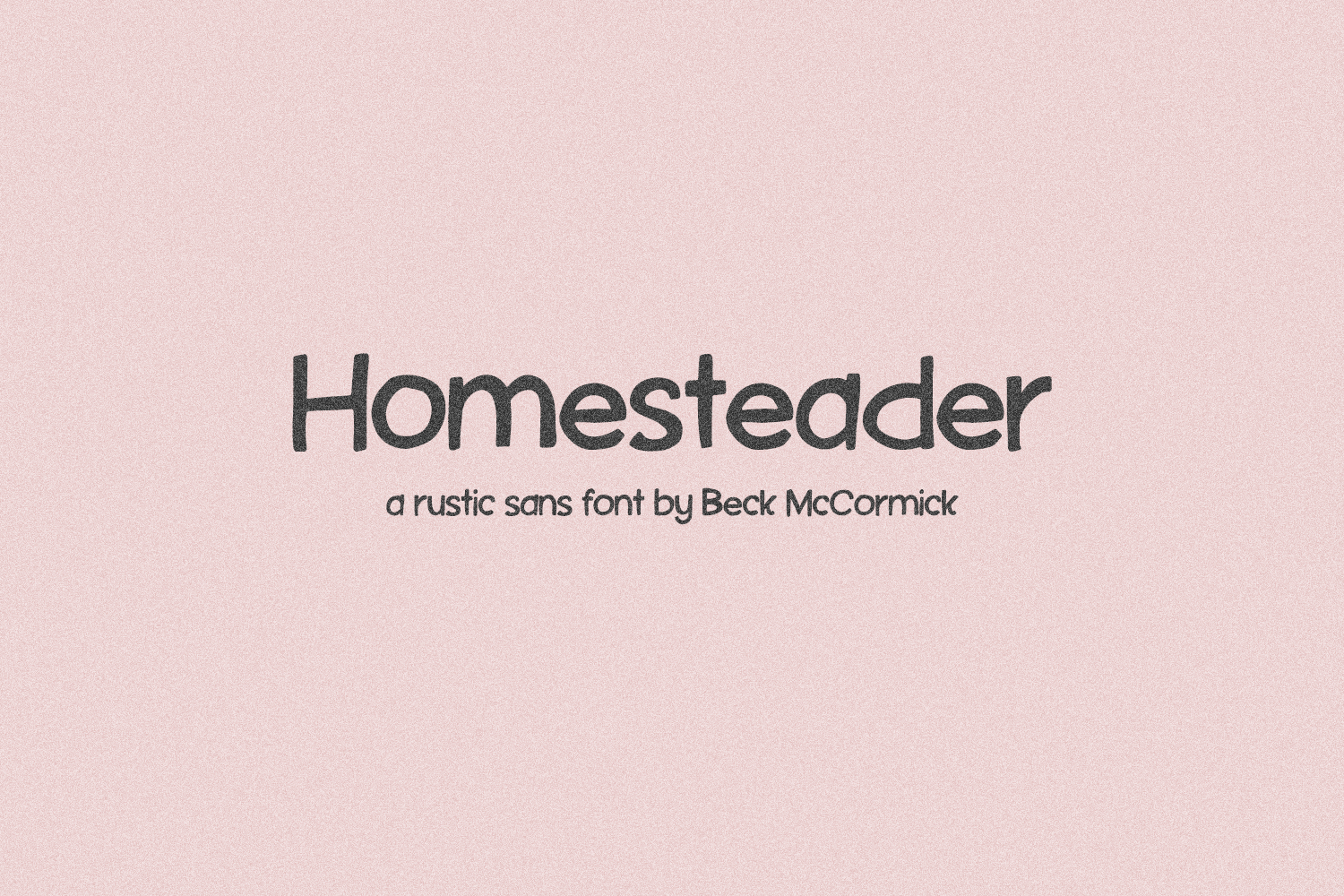
Homesteader Sans
Introducing Homesteader, a rustic, hand drawn sans font. Homesteader has an imperfect wobbly edge, giving each letter a bit of a worn & weathered look. Homesteader is legible, and would be a great fit for farmhouse-style branding projects, crafting, making home decor & signage, and anything requiring a country aesthetic. This font can be used for digital marketing materials, social media, and crafting projects with your Cricut or Silhouette machine.